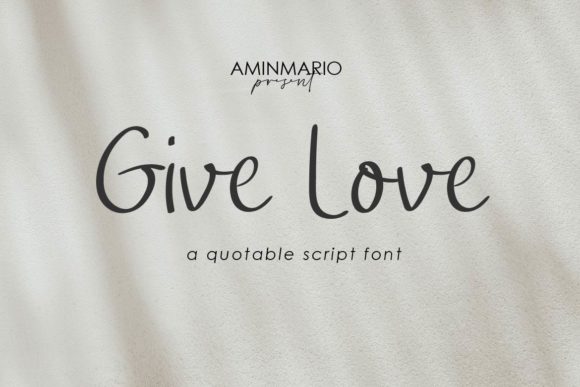
Dive into the world of sophisticated elegance with Give Love Font, a stunning script font family that captures the essence of modern calligraphy. Every letter, meticulously crafted, exudes a timeless charm that elevates your designs to new heights of artistry.
Step into the realm of creativity where Give Love Font reigns supreme. Its versatility grants you the freedom to explore a myriad of design possibilities, transforming your ideas into captivating works of art. From the delicate curves of letterheads to the bold strokes of titles, this font family adapts seamlessly to your vision.
Unleash your inner artist and let Give Love Font ignite your imagination. Whether you're crafting heartfelt messages on Instagram or embarking on enchanting DIY projects, this font will elevate your creations, turning them into masterpieces that resonate with beauty and grace.
Elevate your signature to new levels of elegance with Give Love Font, the ultimate choice for adding a touch of sophistication to your digital documents. Its graceful lines and impeccable flow lend an air of professionalism, ensuring your signature makes a lasting impression.
Immerse yourself in the beauty of Give Love Font and let its allure captivate your senses. Each character dances across the page with enchanting charm, leaving a trail of visual delight. Experience the joy of creating designs that exude refinement and elegance, and let Give Love Font guide you on your artistic journey.